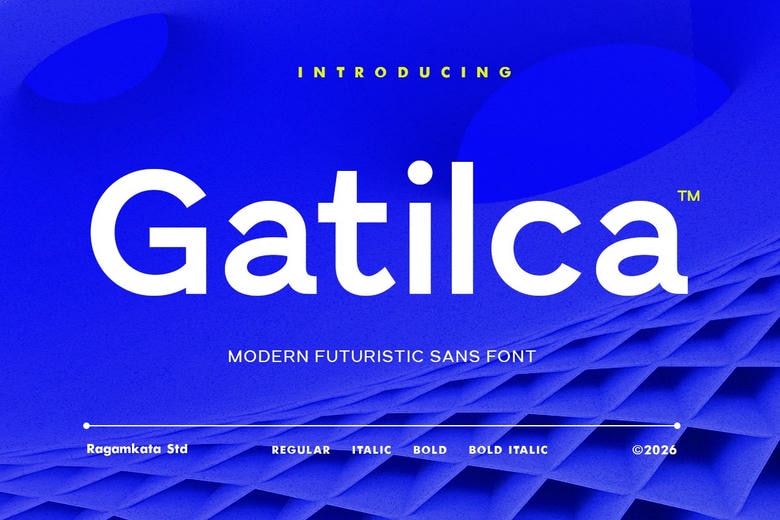
Gatilca Font
Gatilca is a contemporary futuristic sans serif typeface to provide a clean, innovative and progressive visual identity. An ideal match to technology branding, start-up identities, interfaces of websites, graphics of games and modern advertising design, Gatilca offers an aggressive typographic style that is effective on the web or in print advertising.
Clean shapes and contemporary rhythm are created to make it perfect in logos, headlines, posters, UI design, and futuristic image concepts. Gatilca assists designers in coming up with smooth and effective designs irrespective of whether they are dealing with tech companies, innovation brands, modern websites, or digital product campaigns.
Gatilca Sans Serif Font